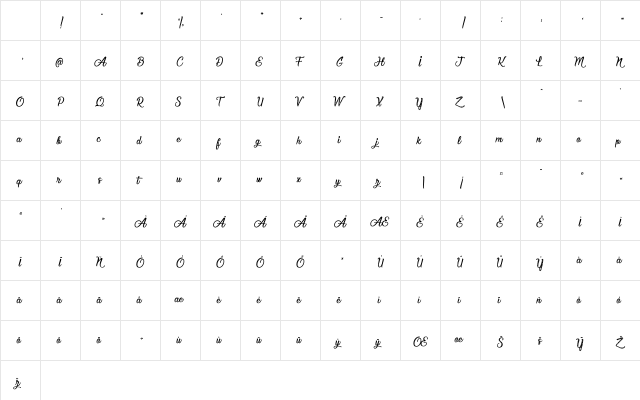
Elegant and Sensational is a composed and adaptable typeface that performs quietly and consistently across a wide range of design contexts.
Who designed the Elegant and Sensational Regular font?